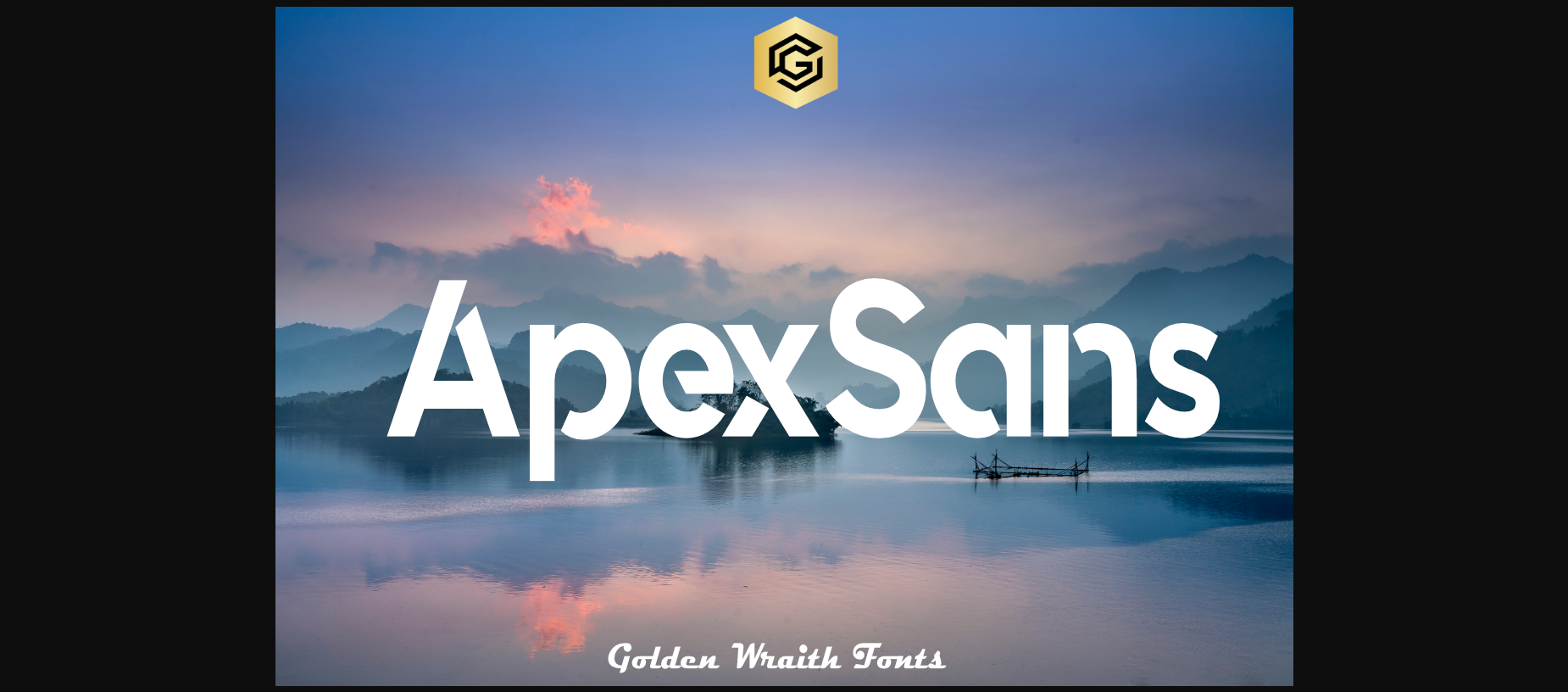
Apexsans Font
About Apexsans Font
“ApexSans” is a bold and modern sans serif font that radiates strength and confidence. With clean, geometric letterforms, it offers a dynamic and impactful appearance, ideal for projects requiring attention and clarity. Versatile across print and digital media, “ApexSans” maintains a contemporary aesthetic while ensuring legibility. This font embodies modern design, making a bold statement with its authoritative and professional presence.